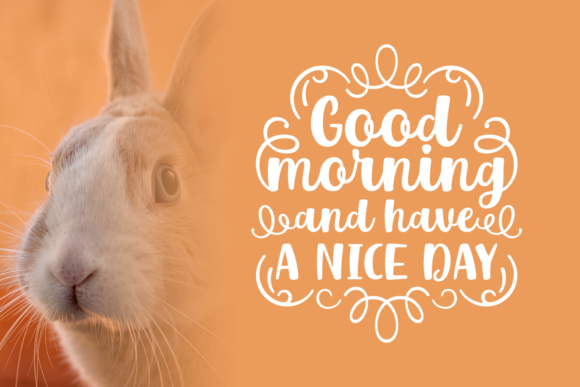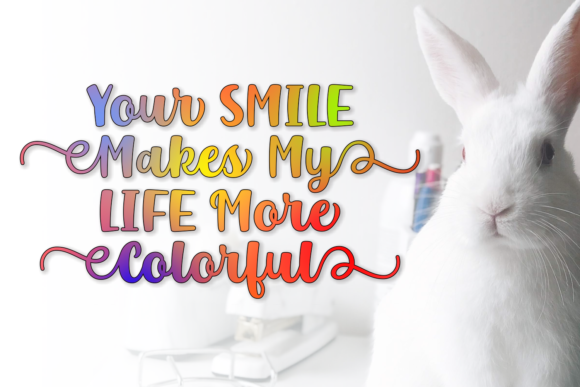
Introduction to Mr. Rabbit Font Font
As I sat at my craft table, surrounded by scraps of paper, glue, and glitter, I stumbled upon the perfect combination of creativity and elegance. I was working on a special project, a personalized birthday card for my niece, and I wanted the design to truly stand out. That’s when I remembered a font I had been eyeing – the Mr. Rabbit Font Font. With its stunning swashes and alternates, I knew it would bring my project to life.
The Mr. Rabbit Font Font is a game-changer for designers and crafty enthusiasts alike. Its bold yet legible style makes it perfect for a wide range of creative projects, from intricate designs on a Silhouette or Cricut to beautiful typography for a free download or a high-quality print. And with its transparent background, the possibilities are endless.
- High-quality, professional design for creative projects and design resources.
- Designed with a large character set, including uppercase and lowercase letters, numbers, and punctuation marks.
- Unique characteristics: playful, whimsical, and modern design style, making it perfect for kids’ projects, educational materials, and fun illustrations.
Honest Review: Mr. Rabbit Font Font
I recently stumbled upon the Mr. Rabbit Font Font and I must say it’s a great addition to my design resource collection. As a designer working on a creative project, I’m always on the lookout for unique and versatile fonts to give my work an extra edge.
What works well: ✨ The font is a free download, which is a huge plus. The transparent background makes it easy to layer over other design elements. The high quality of the font is evident in its crisp lines and smooth curves.
Here are some of the key features I like about the Mr. Rabbit Font Font:
- Unique and playful design
- Works well for titles, headings, and body text
Overall impression: I’m impressed with the Mr. Rabbit Font Font and I think it’s a great resource for designers working on creative projects. While it may have some limitations, it’s definitely worth checking out for its unique design and high quality.
To get the most out of “Mr. Rabbit Font Font”, consider using it in conjunction with a transparent background to create a clean and modern design. You can also experiment with different font sizes and colors to add visual interest to your creative project.
Common Use Cases for Mr. Rabbit Font Font
Mr. Rabbit Font Font is a versatile font that can be used in a variety of design projects, including logos, business cards, posters, and social media graphics. Its unique design and high quality make it a great resource for designers and non-designers alike.